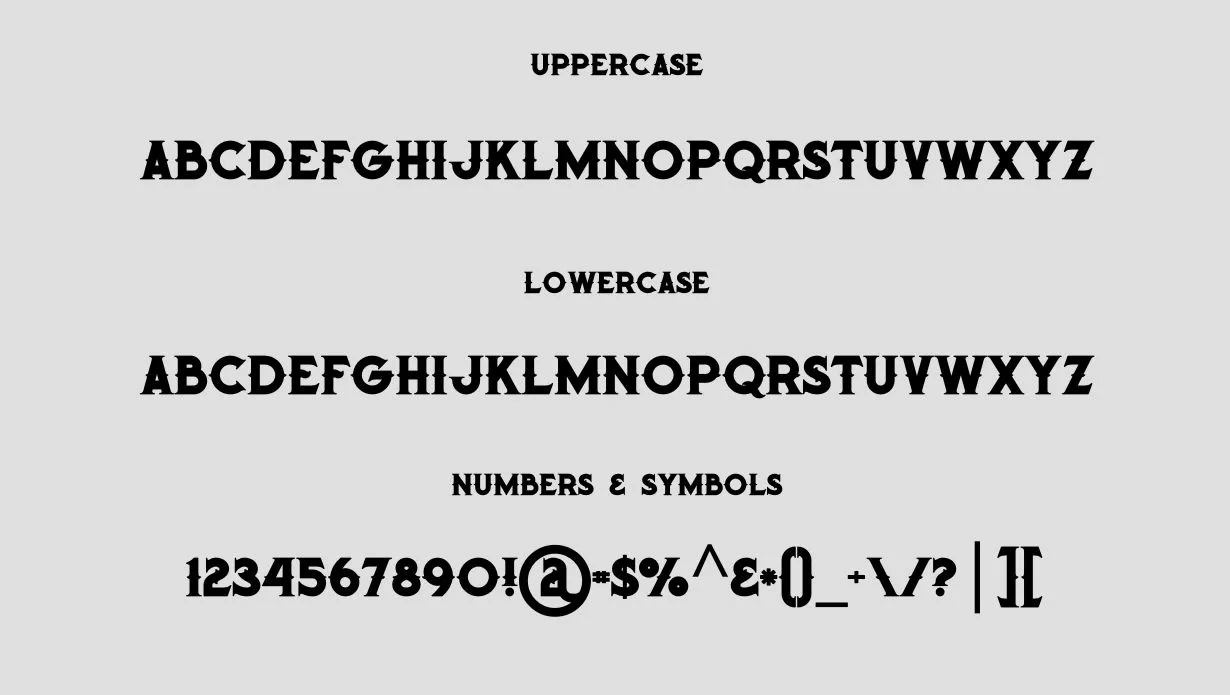
Octopus Font is a bold and imaginative design, often used in projects that aim to convey a sense of creativity and innovation.
The font’s unique and unconventional letterforms add a touch of artistry and individuality to your designs.
Name | Octopus Font |
Designer | Darrell Flood |
Style | Fancy |